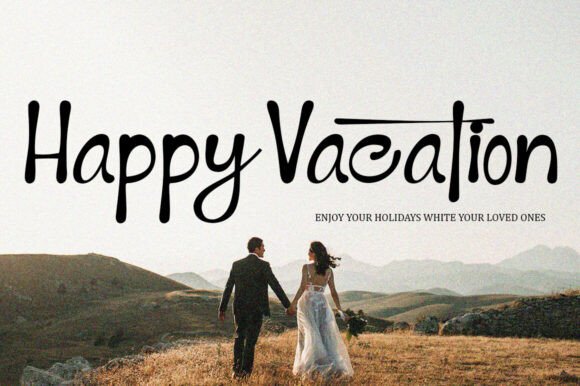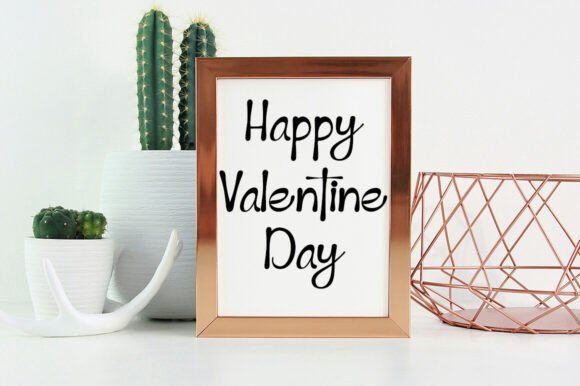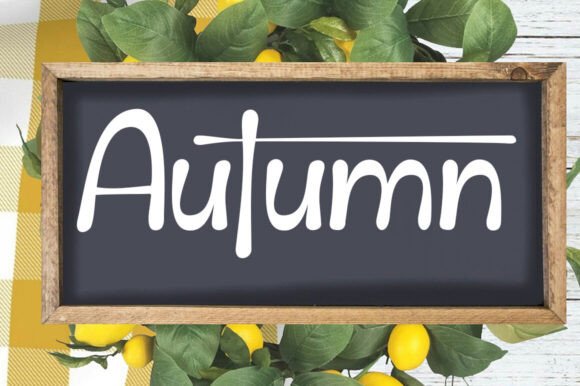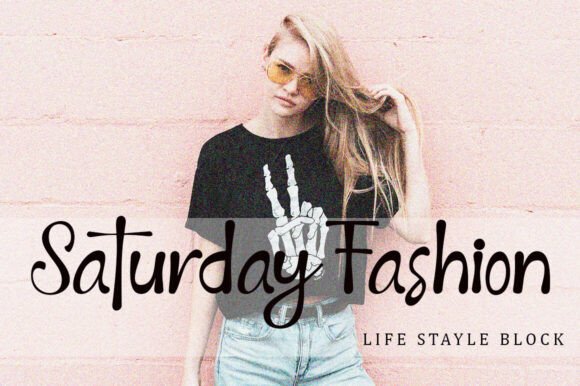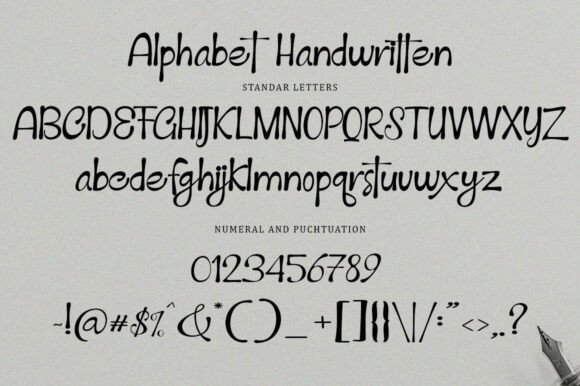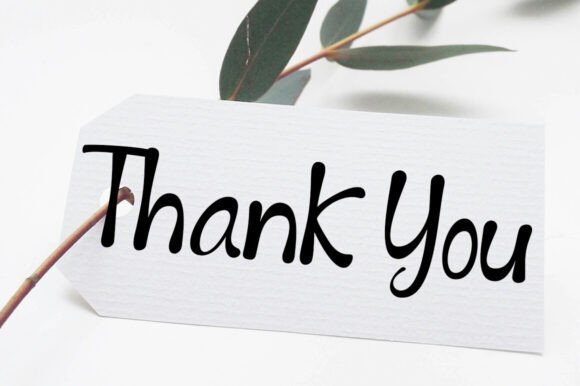
Unleashing Creativity with Alphabet Handwritten Font
Have you ever stared at a blank sheet of paper, waiting for inspiration to strike? That’s exactly where I found myself one morning, brainstorming ideas for a friend’s wedding invitation. I wanted something unique, something that would capture the essence of their love story. As I began to sketch out ideas, I knew I needed a font that would bring my vision to life.
That’s when I stumbled upon the Alphabet Handwritten Font, a modern handwritten font that’s perfect for branding, wedding invitations, and so much more. With its elegant and whimsical touch, this font is a designer’s dream come true. Whether you’re a seasoned pro or a creative enthusiast, the Alphabet Handwritten Font is an invaluable addition to your toolkit.
So, what makes this font so valuable to designers? Its versatility, for starters. From logos to greeting cards, the Alphabet Handwritten Font is the perfect choice for any creative project.
Key Features of Alphabet Handwritten Font
- Unique Handwritten Style: The Alphabet Handwritten Font features a distinctive, cursive handwriting style that adds a personal touch to any design or document.
- High-Resolution Support: Designed at 300 DPI, making it suitable for high-resolution printing and digital displays.
- Large Character Set: Includes a comprehensive set of characters, including uppercase and lowercase letters, numbers, and punctuation marks.
- Font Size: Available in a range of sizes, from 8 to 72 points, allowing for flexibility in design and layout.
- Customization Options: Allows for easy customization of font styles, including bold, italic, and underline.
Alphabet Handwritten Font Review
I recently had the chance to work with the Alphabet Handwritten Font, and I must say it’s a unique and charming addition to any design project. ✨ One of the things I love about this font is its authentic, handwritten feel, which adds a touch of personality to any text. ✨ The font is also incredibly versatile, making it suitable for a wide range of applications, from invitations to social media graphics.
Another advantage of Alphabet Handwritten Font is its easy readability. ✨ The font’s bold and playful strokes make it easy to distinguish individual letters, even at smaller font sizes. This is particularly useful for designers who need to create content that will be viewed on a variety of devices.
- ⚠️ The font can be a bit too casual for more formal projects, such as business reports or academic papers.
- ⚠️ Some characters may not be as smooth or connected as others, which can affect the overall flow of text.
- ⚠️ The font may not be suitable for designs that require precise control over letter spacing or alignment.
Overall, I think Alphabet Handwritten Font is a great addition to any designer’s toolkit. While it may have some limitations, its unique feel and versatility make it a valuable resource for creative projects.
Practical Application Guide for Alphabet Handwritten Font
Use the Alphabet Handwritten Font in combination with other fonts to create a unique and visually appealing design. Experiment with different font sizes, styles, and colors to achieve the desired look. Avoid overusing the font, as it can become overwhelming and difficult to read.
The Alphabet Handwritten Font is ideal for use in creative projects such as invitations, posters, and social media graphics. It’s also suitable for use in educational materials, such as worksheets and lesson plans, where a more personal and approachable tone is desired.